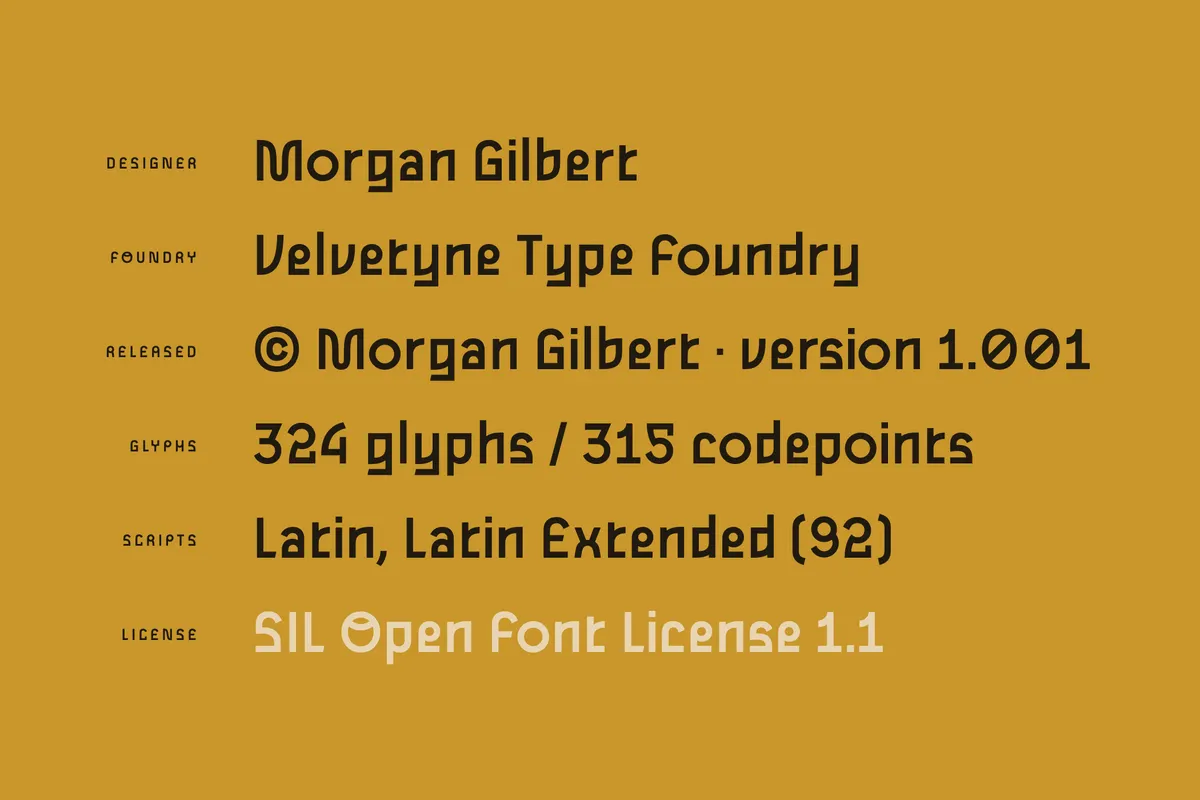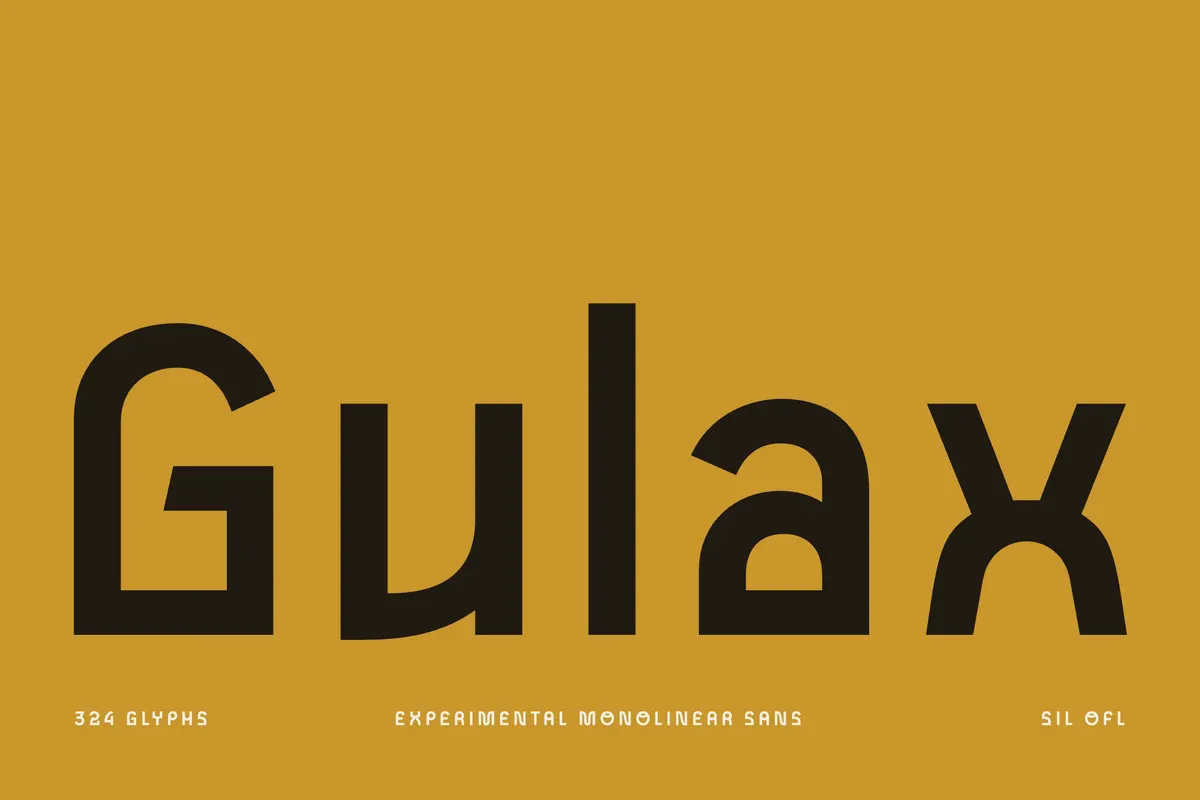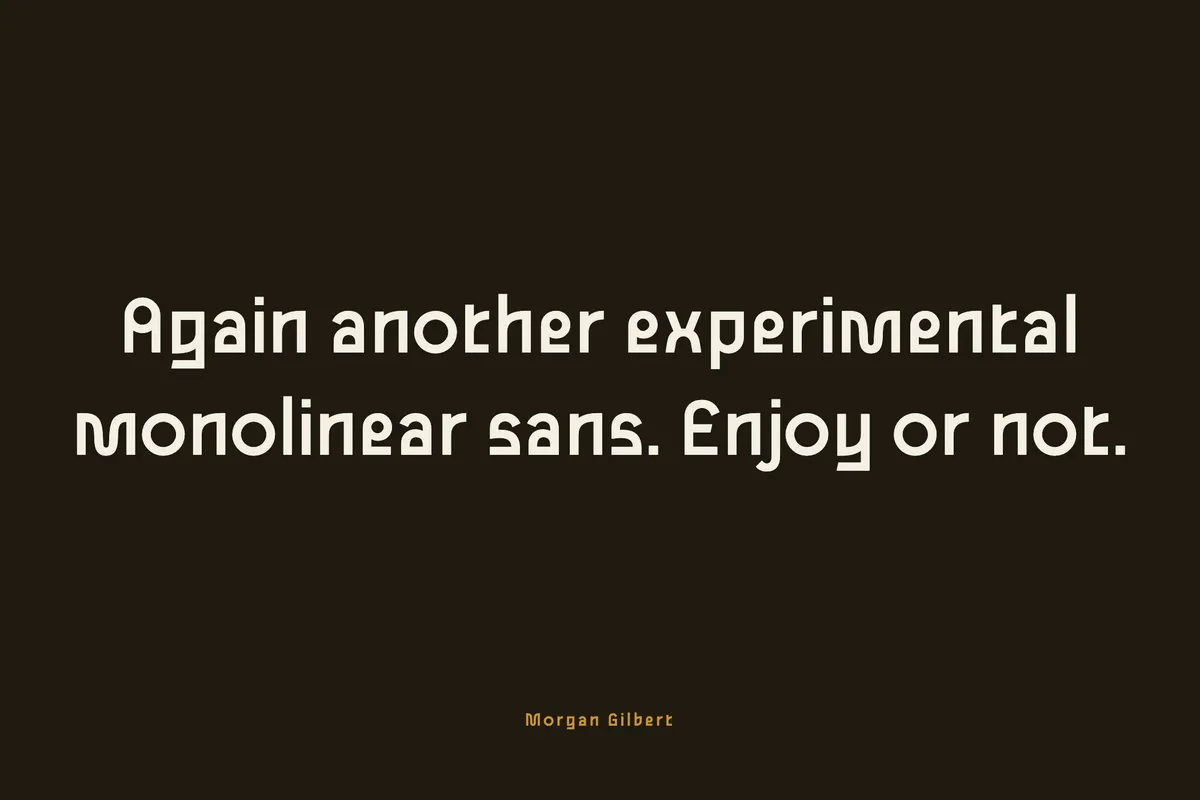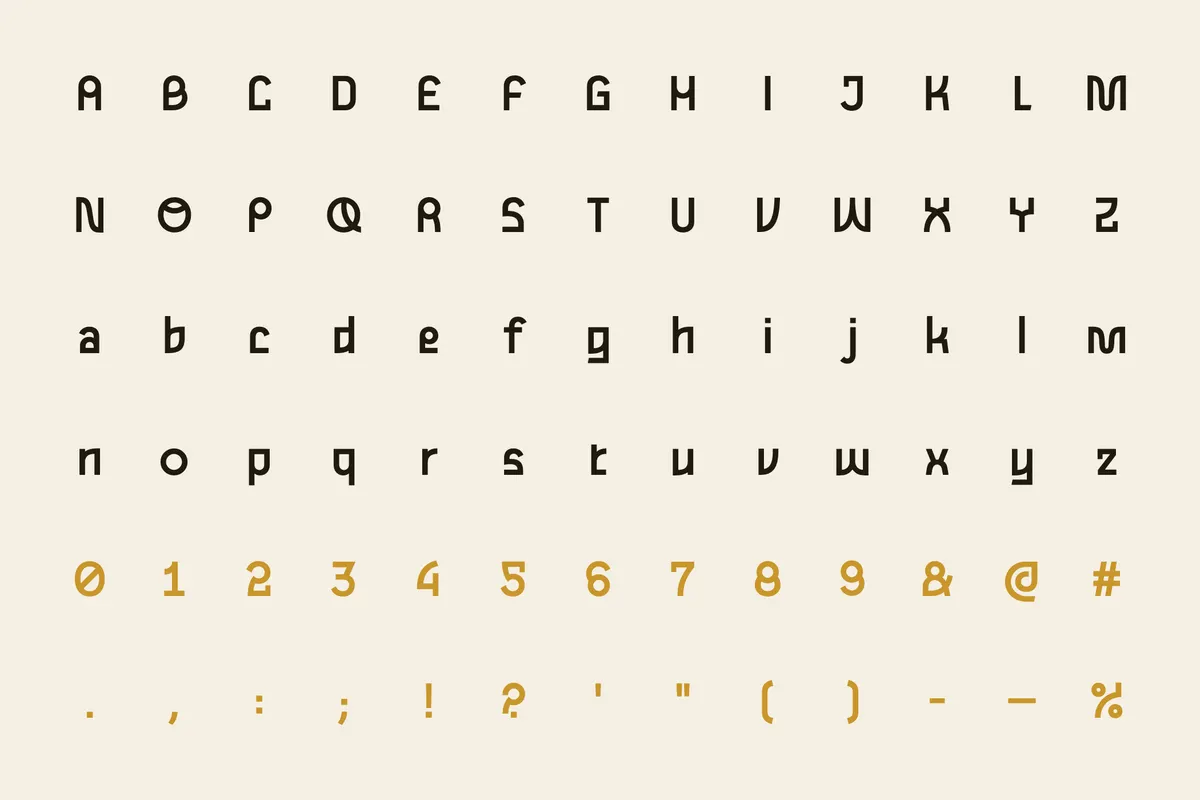
Gulax. Free Brutalist Font
Gulax is an experimental monolinear sans from Morgan Gilbert, published by Velvetyne, whose oddly cut forms the designer waves off with the line "Again another experimental monolinear sans. Enjoy or not."
The even strokes and quirky joins make it read as a display face with attitude, not a workhorse. It suits poster headlines, music and event art, editorial titles, zines, apparel prints, logo work, packaging, art-book covers, and social media graphics.
- uppercase and lowercase letters;
- numbers, punctuation, and symbols;
- multilingual support across the extended Latin script;
- OpenType case-sensitive forms.